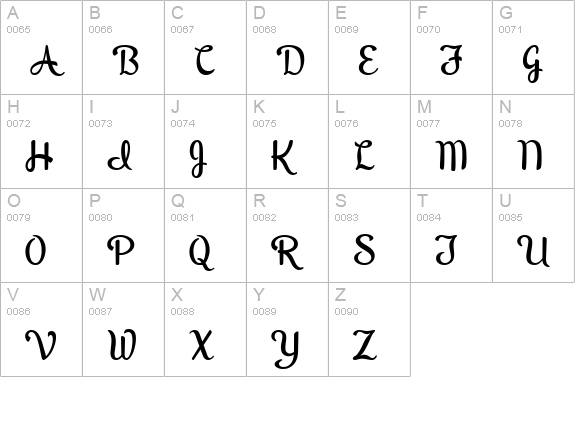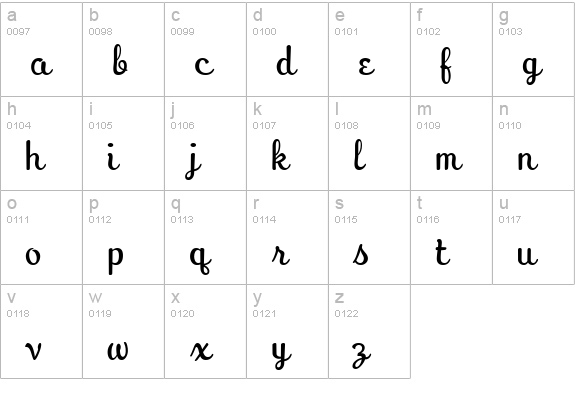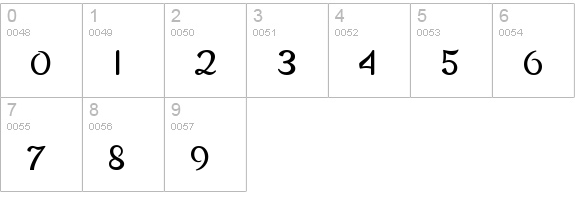
PeregroyJF Font Details
Introducing the captivating PeregroyJF font, a stunning typeface that effortlessly combines modern elegance with a touch of vintage charm. Designed with meticulous attention to detail, this font boasts a harmonious balance between bold, clean lines and intricate flourishes, making it a truly versatile choice for a wide range of creative projects. With its timeless appeal, PeregroyJF font adds a touch of sophistication to any design, whether it's a logo, branding materials, invitations, posters, or website headers. Its unique character set includes a variety of stylistic alternates, ligatures, and swashes, allowing you to easily customize your text and create a truly personalized look. But what sets PeregroyJF apart is its accessibility. This outstanding font is freely available to download at FontsMarket.com, ensuring that designers of all backgrounds can enjoy its exquisite aesthetics without any barriers. Whether you're a professional designer or a hobbyist, PeregroyJF font empowers you to bring your creative vision to life, without compromising on quality or style. Crafted with precision and passion, PeregroyJF font is a testament to the power of typography in conveying emotions and capturing attention. Its versatility, combined with its generous availability, makes it an indispensable tool in any designer's arsenal. So why wait? Unleash your creativity and let PeregroyJF font elevate your designs to new heights. Download it for free at FontsMarket.com and embark on a typographic journey like no other.